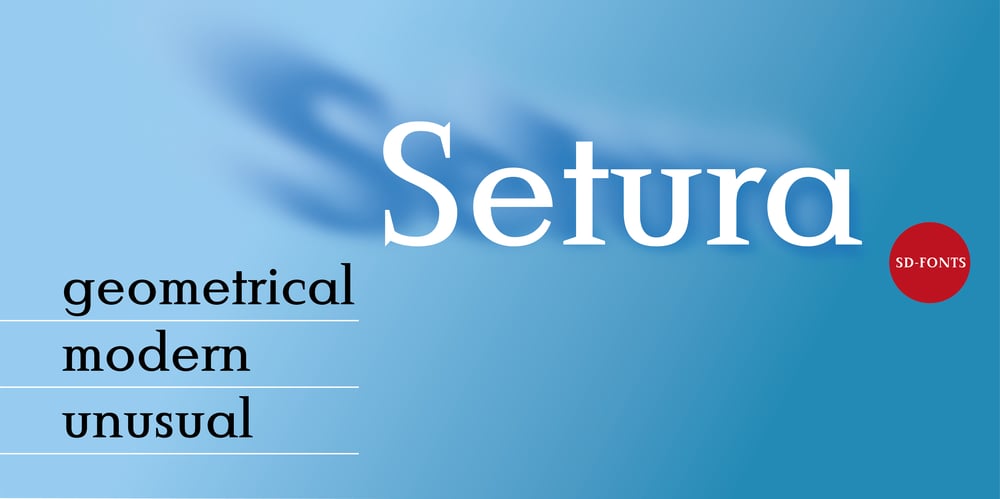
Setura Font Family was designed by Hartmut Schaarschmidt and published by SD Fonts. Setura contains 9 styles and family package options. Setura – geometrical, modern, unusual.Setura is the perfect match for geometrical sans serifs like Futura, Avenir and many others. Its characters are based on circles, triangles and squares and in addition a small x-height contributes to its typical geometrical look quite unusual to serif fonts. Thus Setura is not a common serif, but a vivid outstanding typeface. It’s kind of old style without being old style.